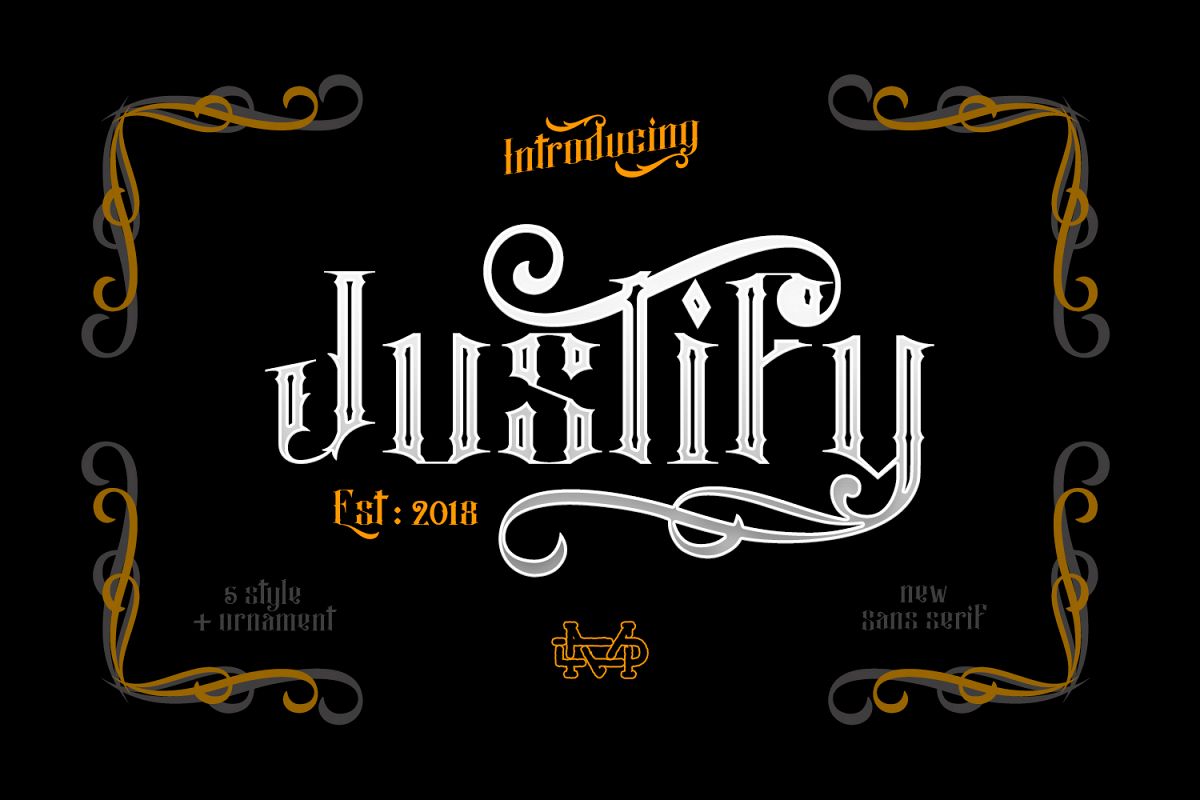
Justify I Font Packages
Really excited to introduce fresh from the oven
Justify Fonts Package is a typeface inspired in tattoo letters! Justify have six style plus ornament, Justify perfect for all your designs project.
Feature
• UPPERCASE
• lowercase
• Number & Symbol
• International Glyps
• Alternative UPPERCASE (ss01-ss02-ss03)
• Alternative lowercase (alt01-alt02-alt03)